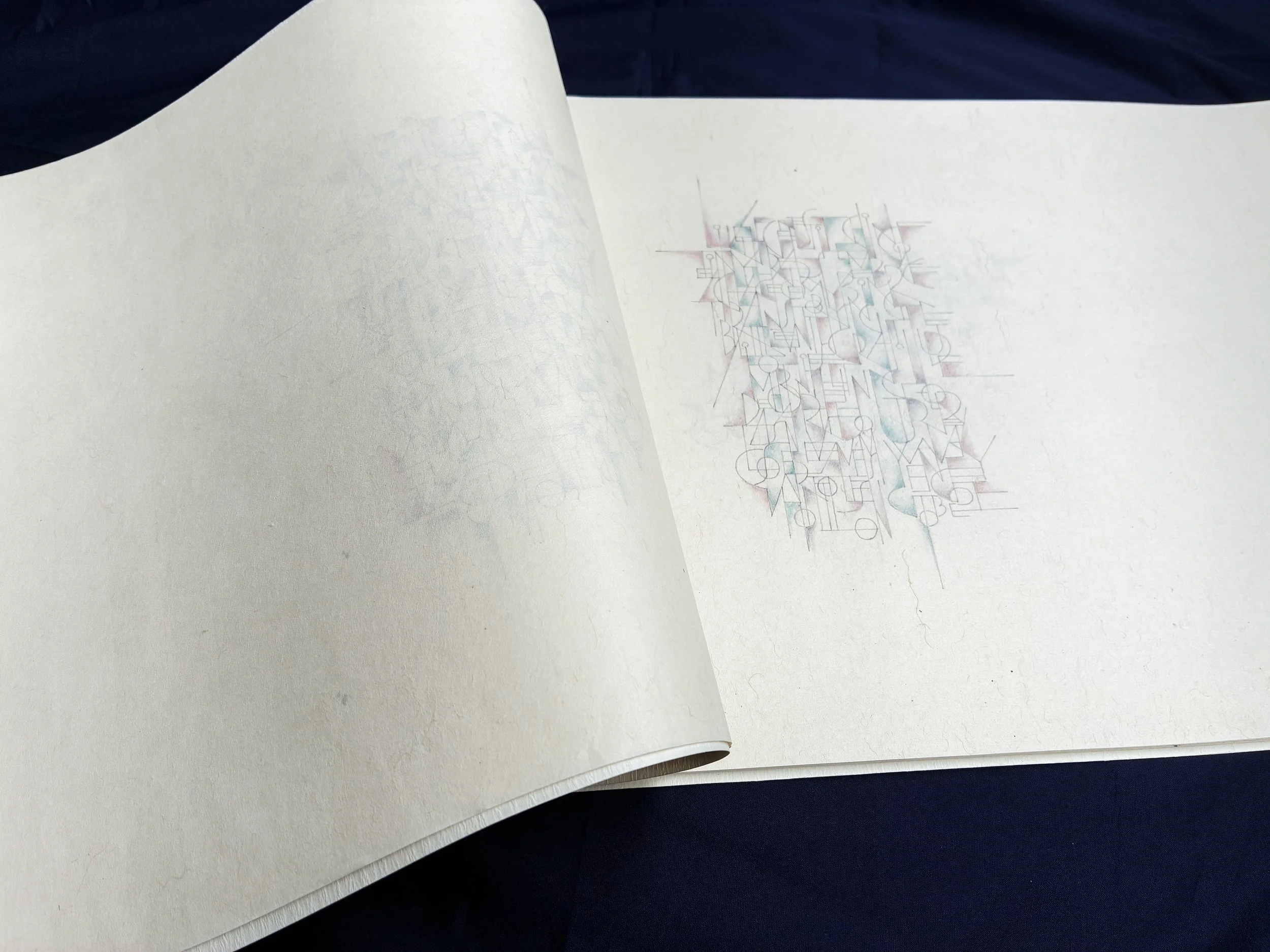
SHIZUKA TOYAMA | Unraveling
ARTIST | Shizuka Toyama
BASED IN | Japan
TITLE | Unraveling
MEDIUM | Hemp paper for Sumi-e, Washi paper for backing, pencil, coloured pencil, sumi
Page 1 of The History of My Heart explores the social façade that people carry—how the expectations of “how one should be” shape and constrain the self. Through layered textures and subtle mark-making, the work reflects the quiet tension between inner truth and outward presentation.
About the Artist
An artist based in Japan
Shizuka
Shizuka began her journey in Western calligraphy in 1998, first approaching the practice as a hobby. After marrying in 2000 and raising two children, she continued nurturing her interest in calligraphy while prioritising family life. A significant turning point came when her partner’s work brought the family to Chicago, USA, from 2015 to 2018, giving her renewed opportunities to deepen her engagement with the art form. Today, Shizuka’s practice centres on the expressive quality of lines and the exploration of textures created through letters. She is currently interested in integrating Japanese calligraphy and crafts into her work and is studying traditional Japanese mounting techniques.